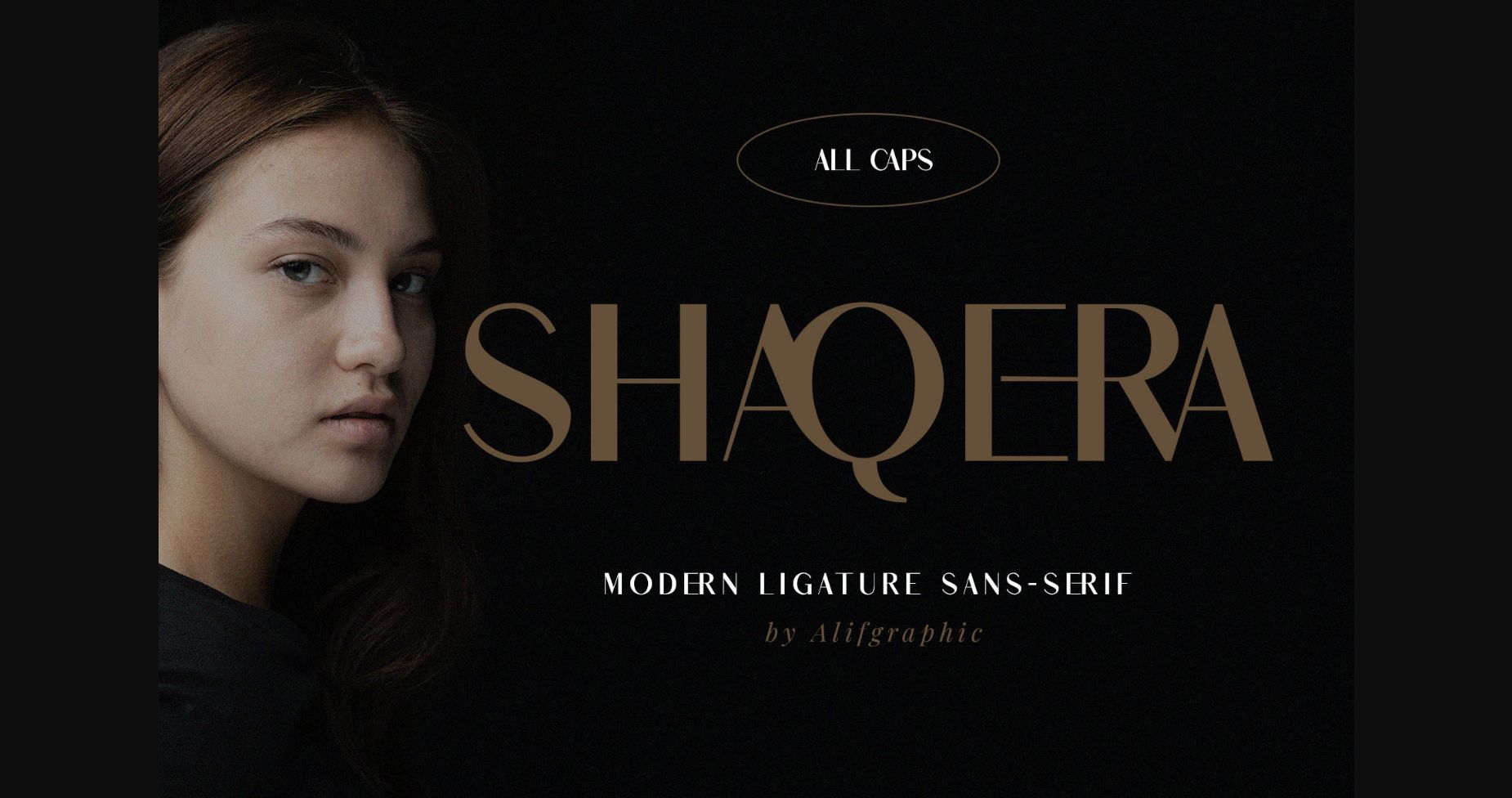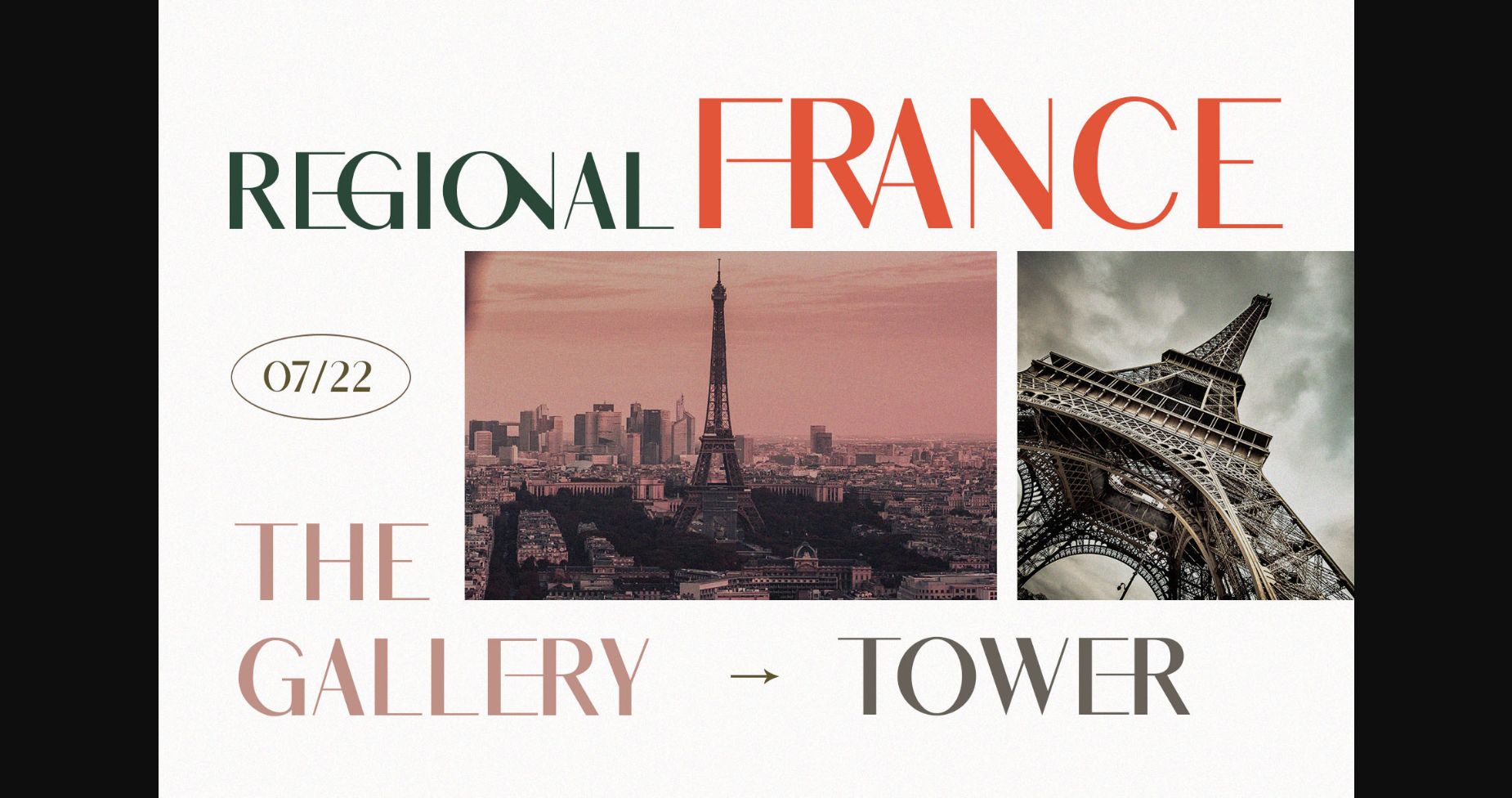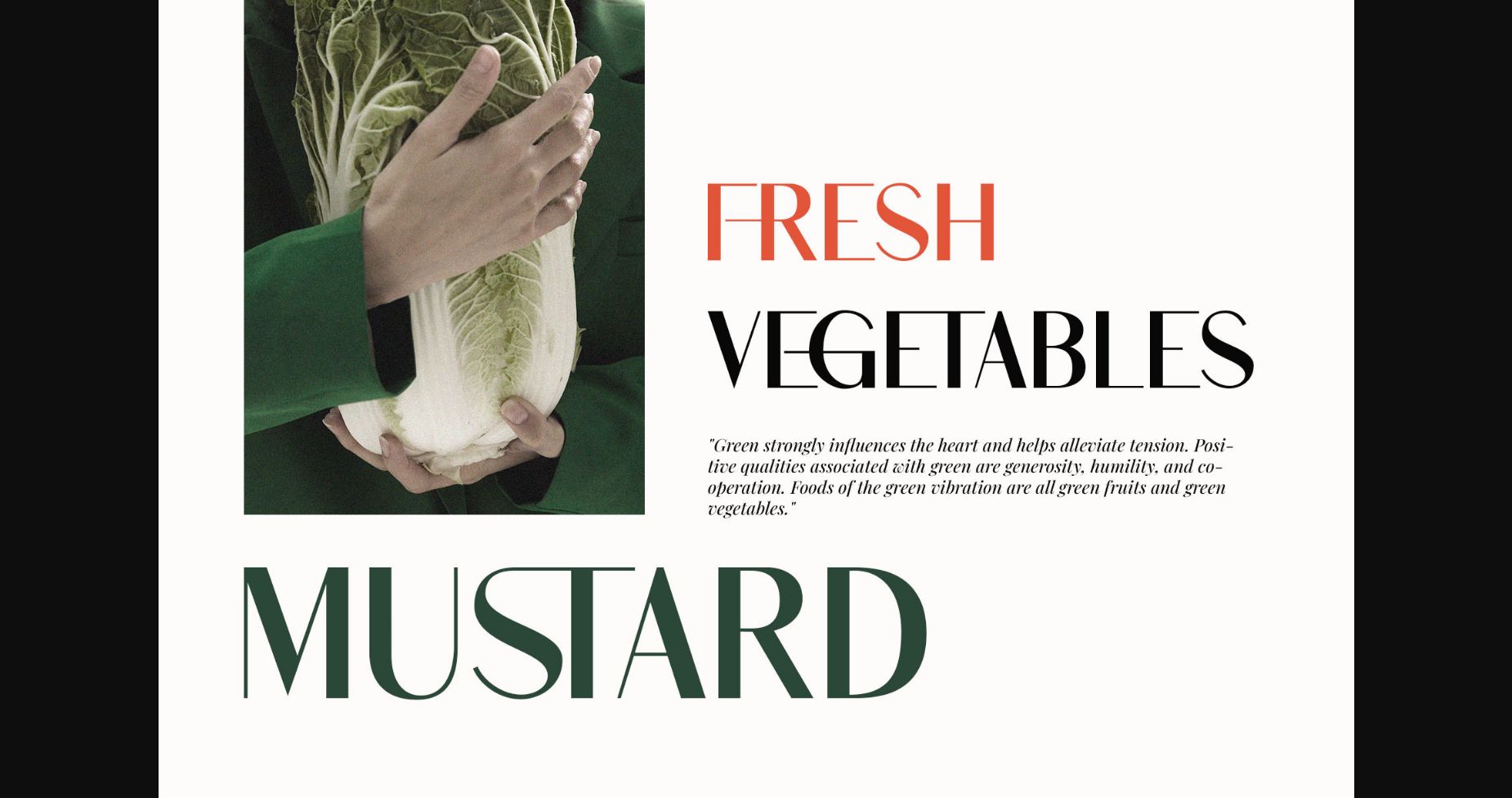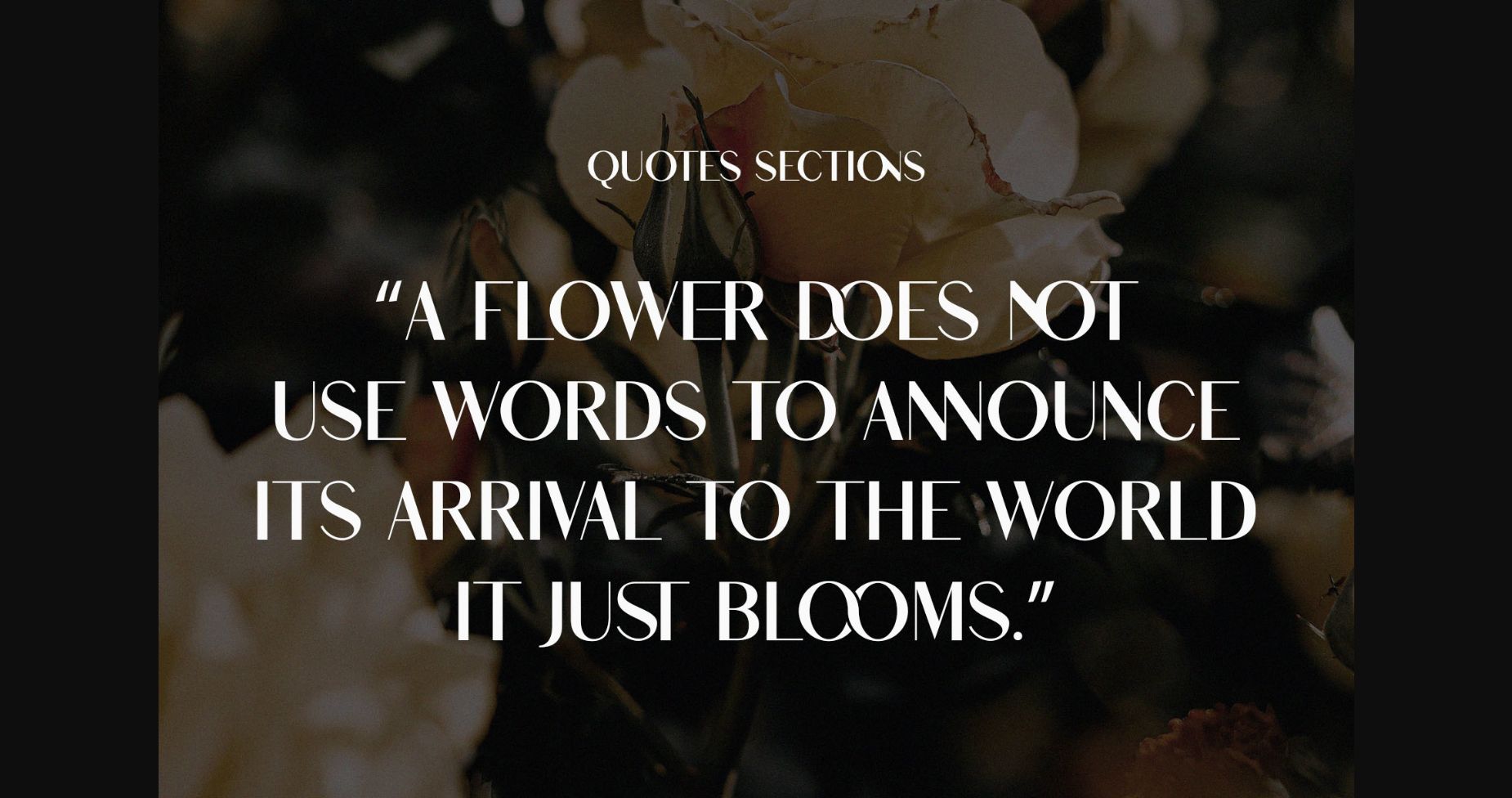
Shaqera Font
About Shaqera Font
Shaqera is a modern sans serif font that exudes confidence and innovation. Its clean and geometric letterforms feature sharp angles and a sleek design, inspired by the modernist movement. The font’s contemporary and forward-thinking style is perfect for anything from tech branding to editorial design. Shaqera’s innovative and sophisticated style is sure to make a bold statement.